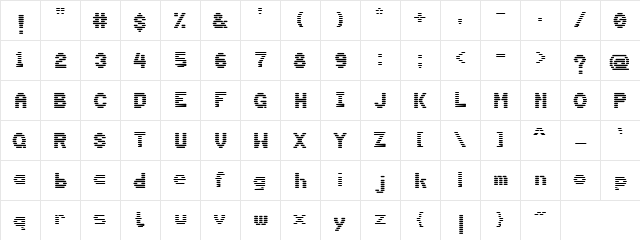
DS-Terminal Normal
Design Context for DS-Terminal Typeface
DS-Terminal is a composed and adaptable typeface that performs quietly and consistently across a wide range of design contexts.